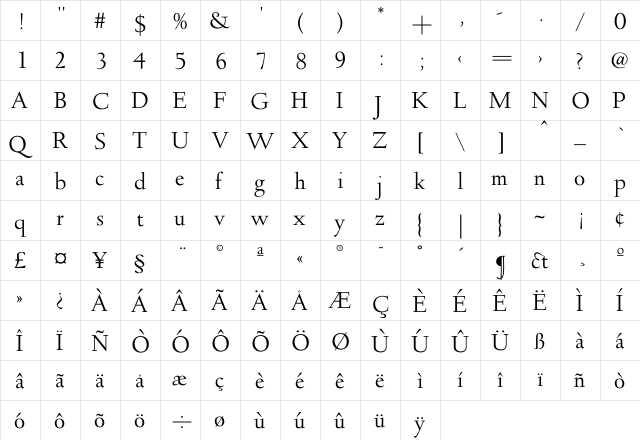
Deepdene L Font Preview
Deepdene L
Deepdene L Font Details
Design Context for Deepdene Typeface
Deepdene is a composed and adaptable typeface that performs quietly and consistently across a wide range of design contexts.
Pro Tip: Use Deepdene in both headline and body roles to test its range before committing to a single application.